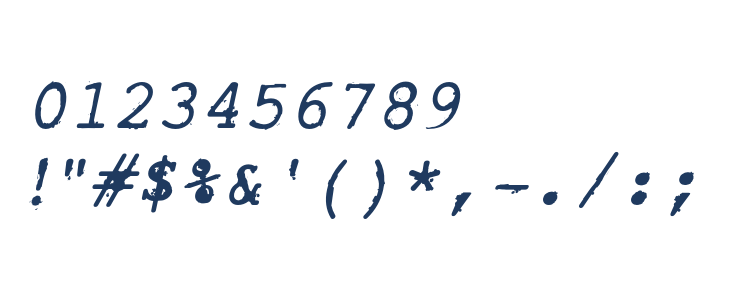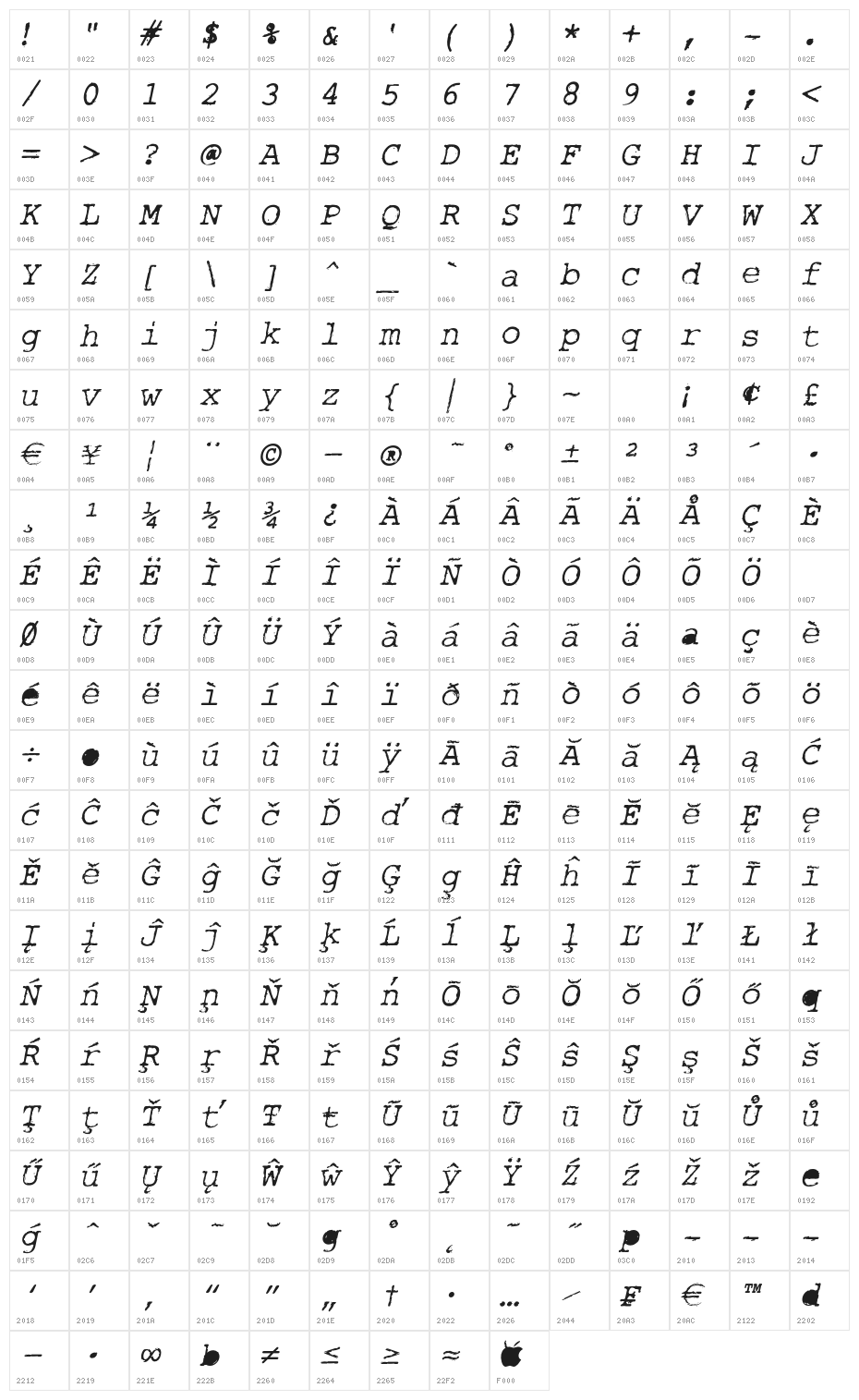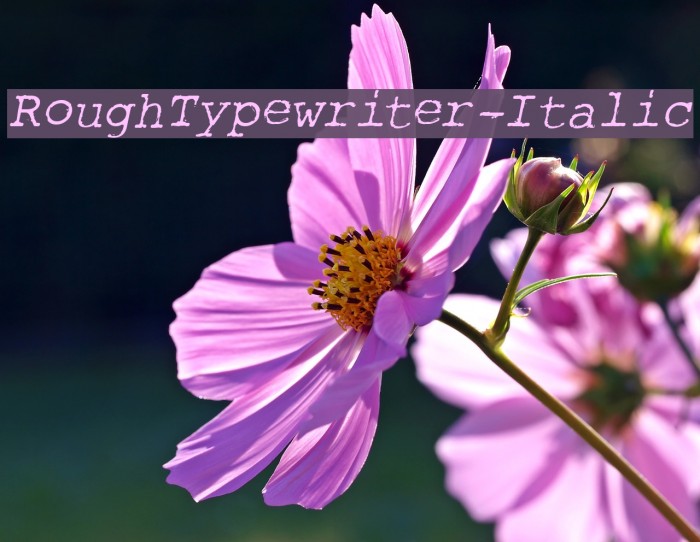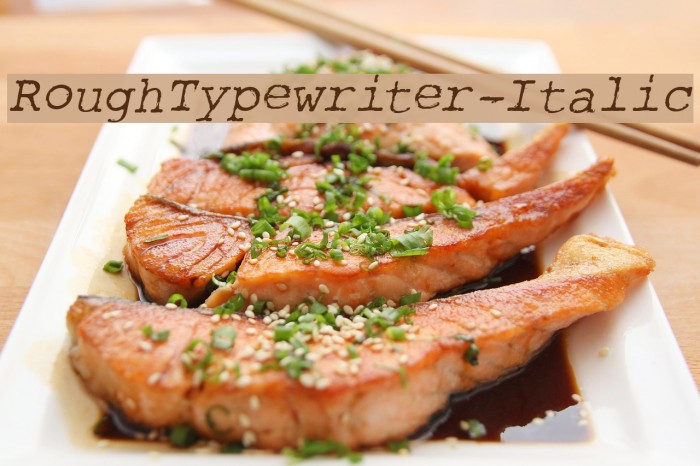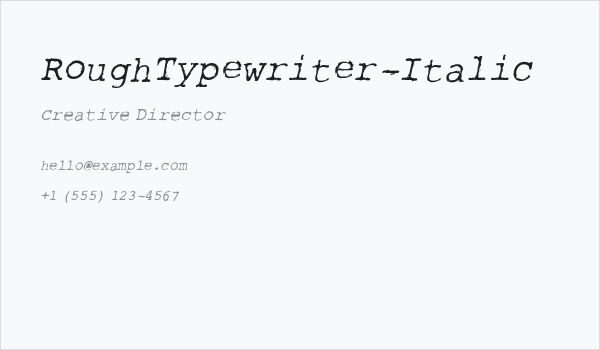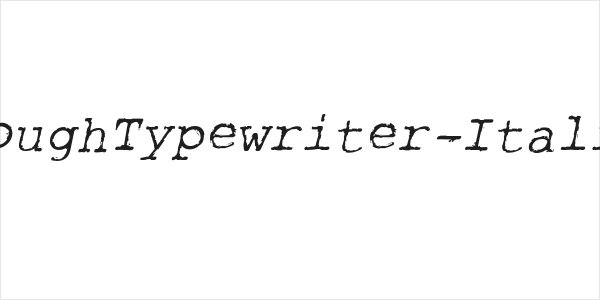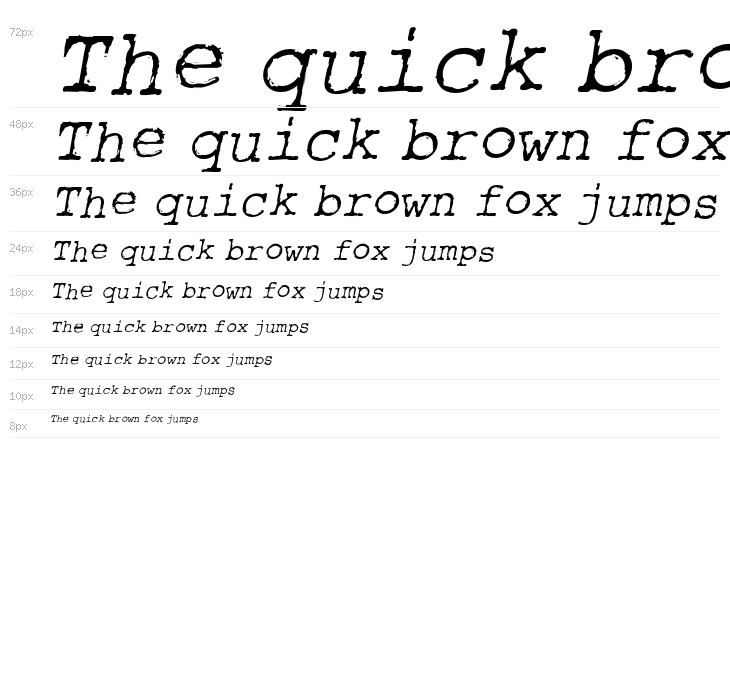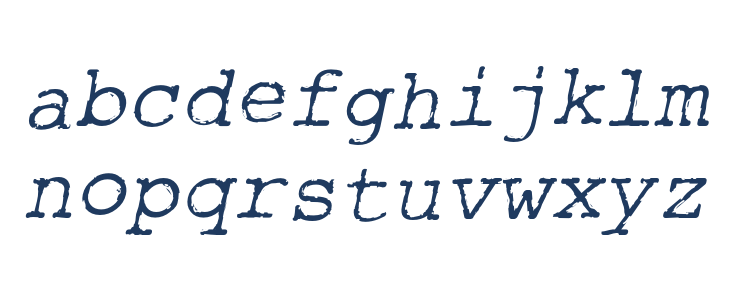
RoughTypewriter-Italic Font
RoughTypewriter-Italic Description
This typeface exudes a vintage, rugged charm reminiscent of old typewriter fonts. Each character is slightly distressed, giving it an authentic, worn look that adds personality and character. The italic slant enhances its dynamic feel, making it suitable for projects that require a touch of nostalgia or a handcrafted aesthetic. The uppercase and lowercase letters maintain a consistent style, while the numerals and special characters complement the overall design. The font's irregularities and imperfections are intentional, contributing to its unique appeal.
| Proposed Projects | Ideal for retro-themed designs, vintage posters, book covers, and creative projects that require a nostalgic touch. |